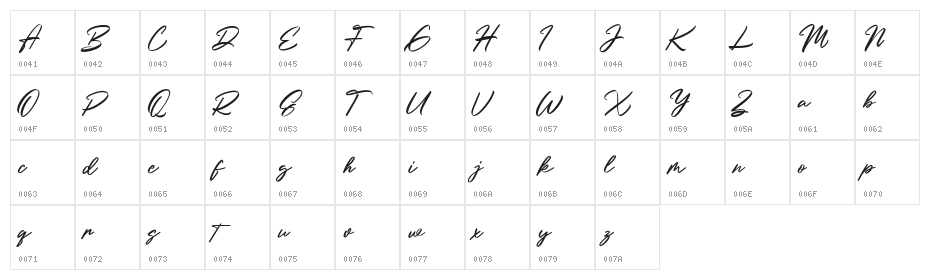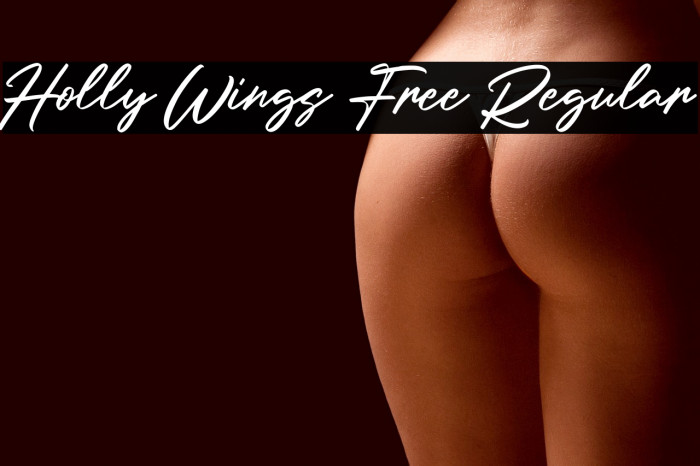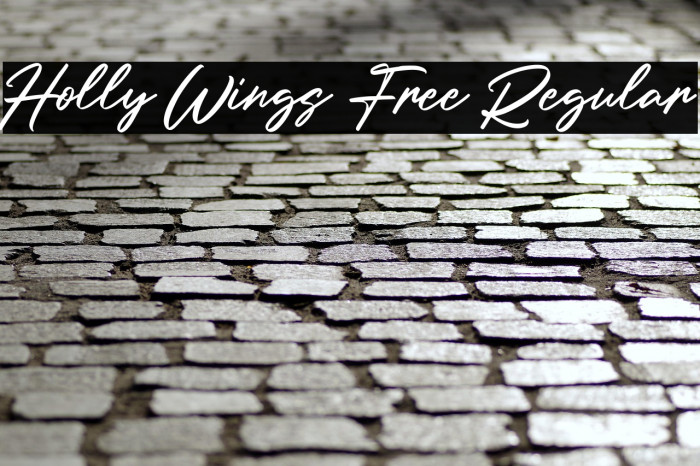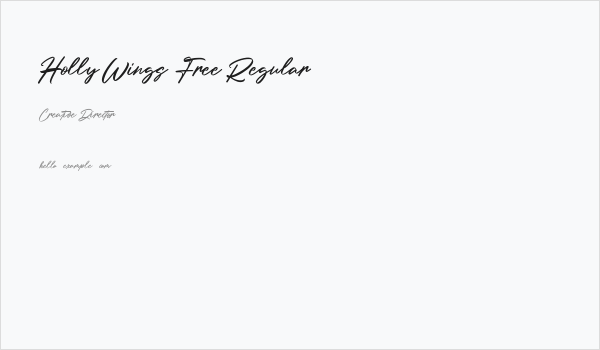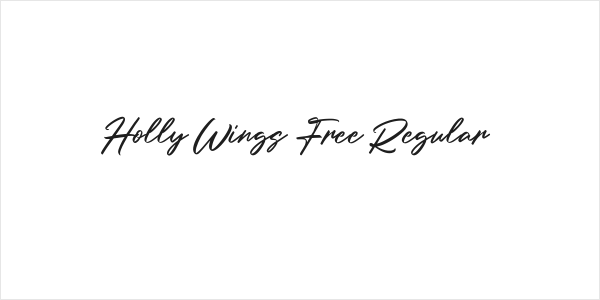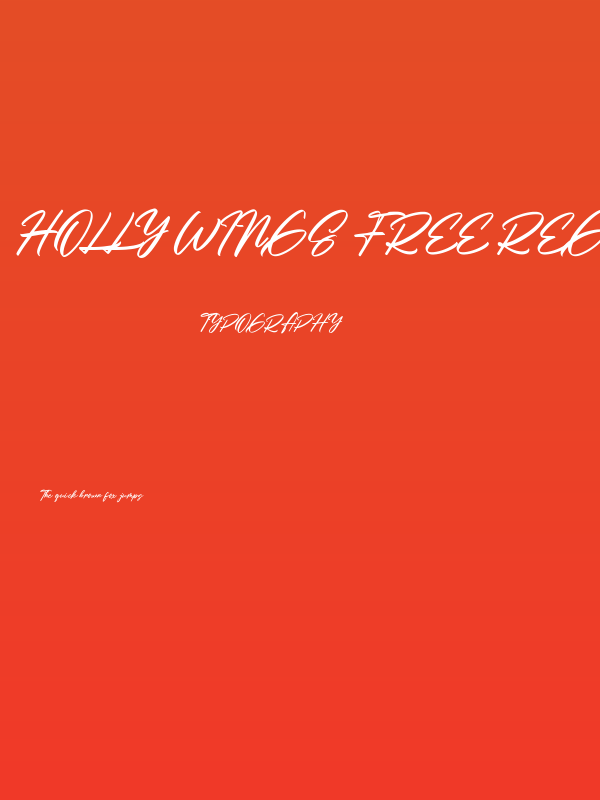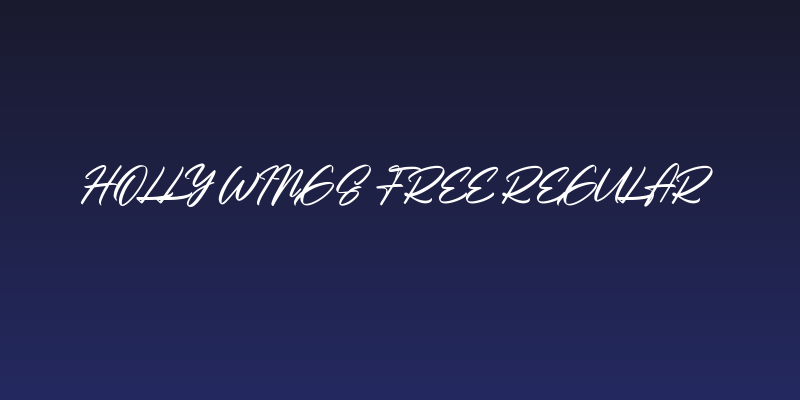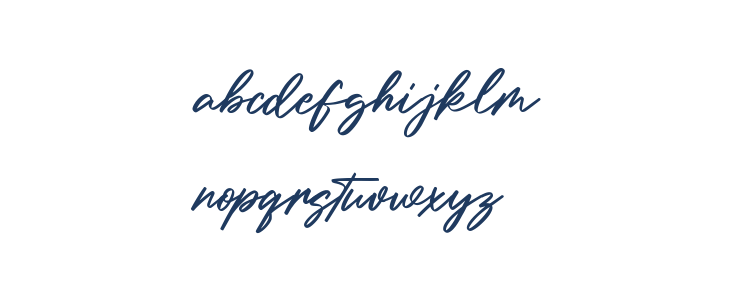
Holly Wings Free Regular Font
Holly Wings Free Regular Description
This font features a flowing, cursive style that exudes elegance and sophistication. The letters are interconnected, creating a seamless and fluid appearance. The strokes are bold and expressive, with a slight slant that adds a dynamic feel. The uppercase letters are grand and sweeping, while the lowercase letters maintain a consistent rhythm and balance. This font is perfect for adding a personal touch to any design, with its artistic flair and graceful curves. The overall look is both modern and timeless, making it versatile for various applications.
| Overall Style | Elegant, Modern |
| Proposed Projects | Ideal for wedding invitations, branding, greeting cards, and elegant signage. |